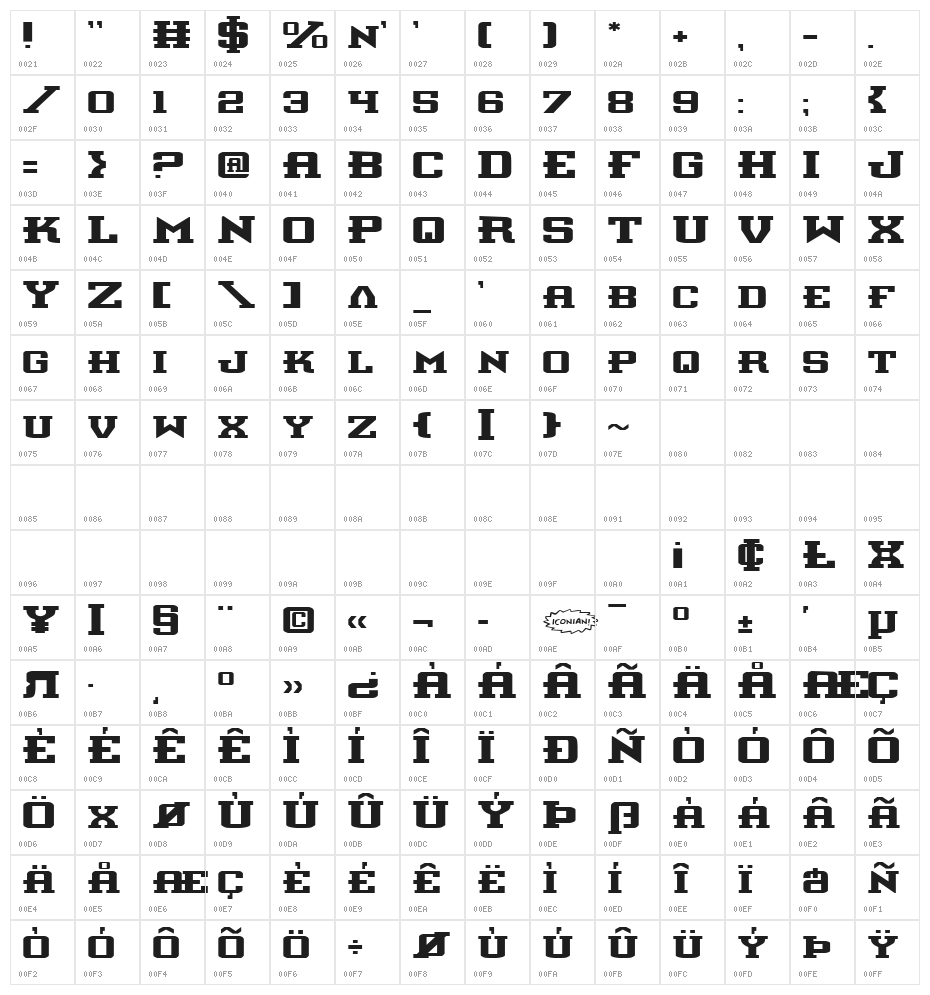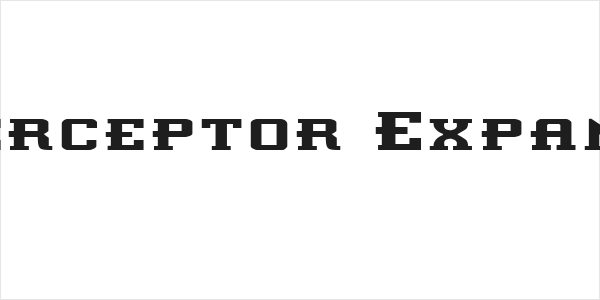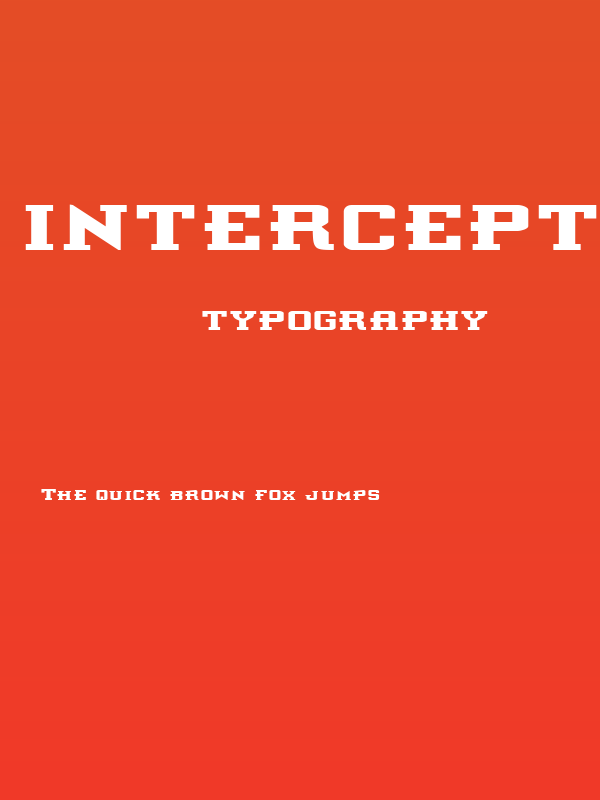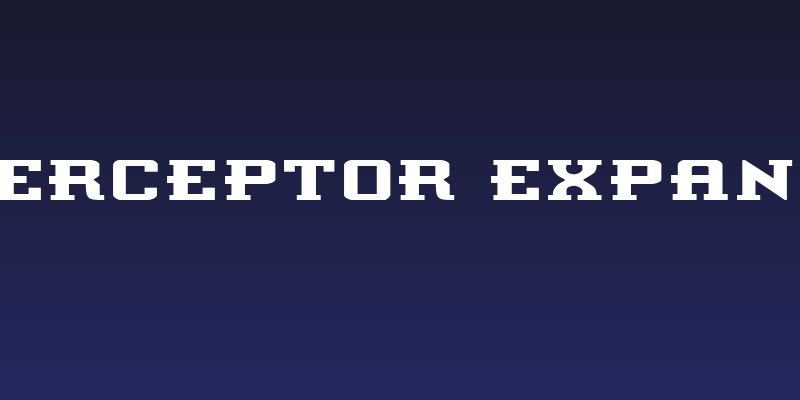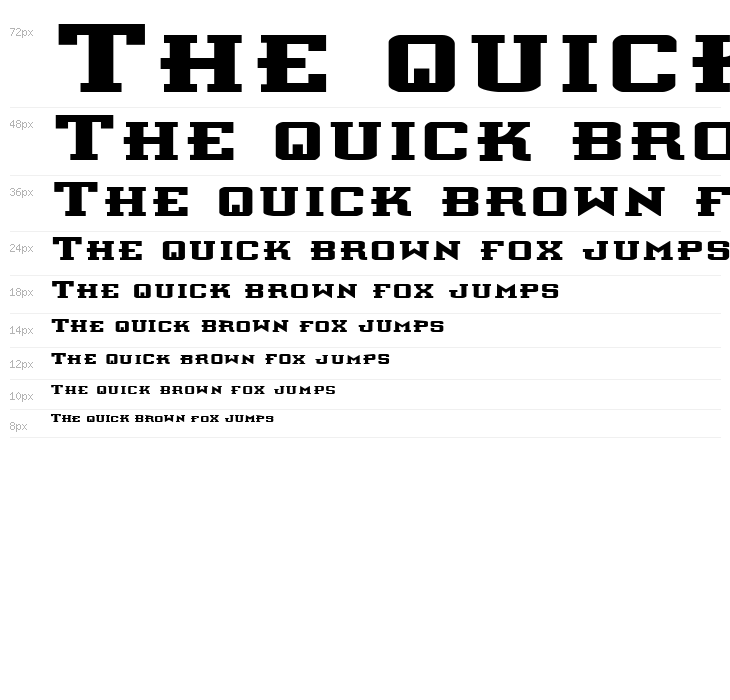
Interceptor Expanded Font
Interceptor Expanded Description
This font features a bold and expanded style with a strong, commanding presence. The characters are designed with a blocky, geometric structure, giving them a robust and industrial feel. The uppercase letters are particularly striking, with sharp angles and a uniform width that enhances their readability. The numerals and special characters maintain this bold aesthetic, ensuring consistency across all elements. The font's expanded width allows for excellent legibility, making it suitable for attention-grabbing headlines and impactful designs.
| Proposed Projects | Ideal for use in posters, headlines, branding, and any project requiring a strong, impactful typeface. |